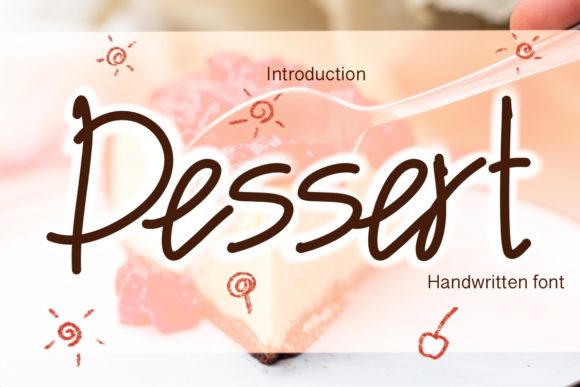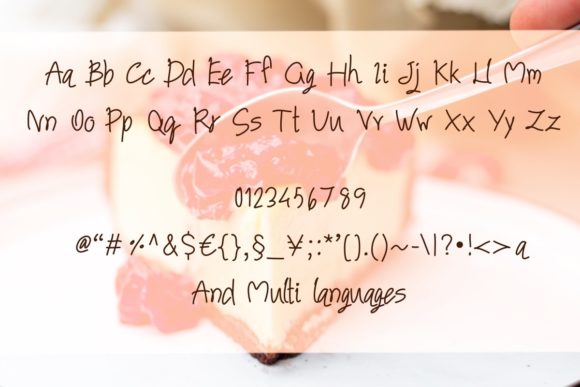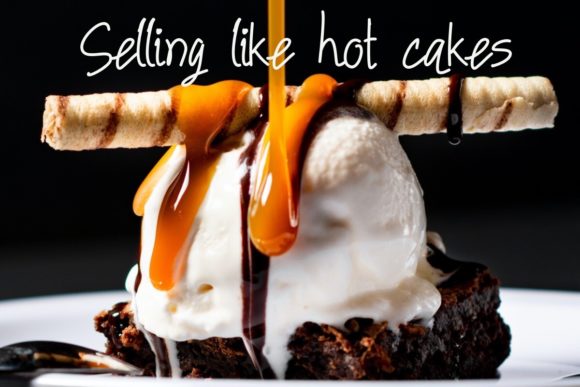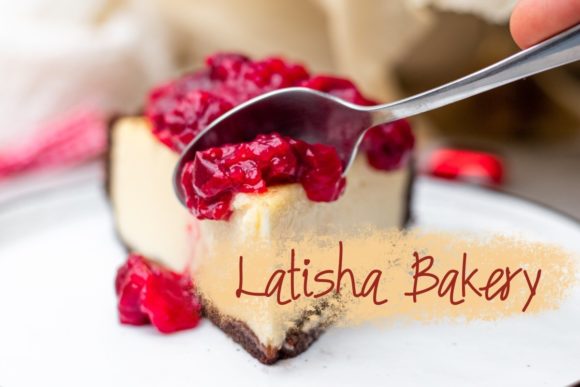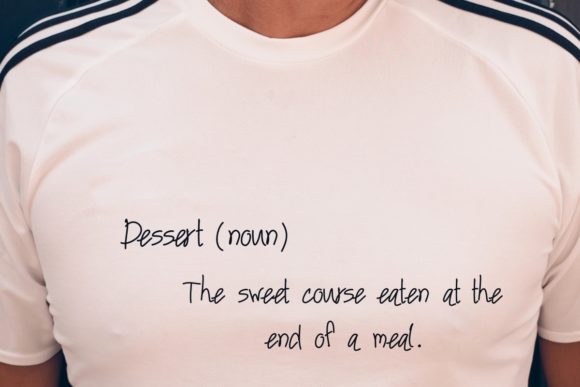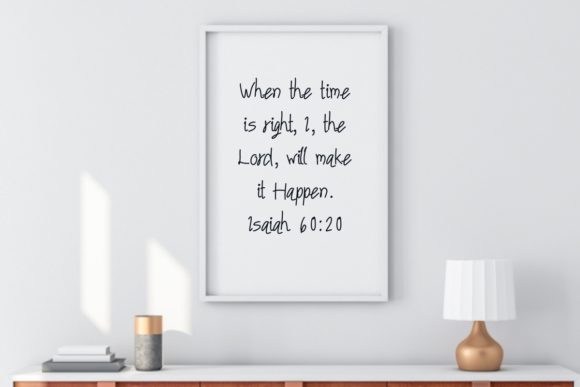
Dessert Font
About Dessert Font
Dessert is a quirky and asymmetrical script font. It maintains its classy calligraphic influences while feeling contemporary and fresh. Fall in love with it and bring your projects to the highest levels!